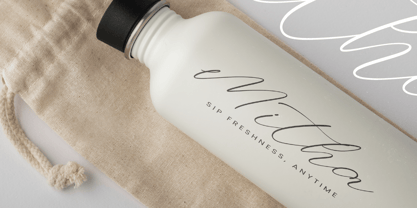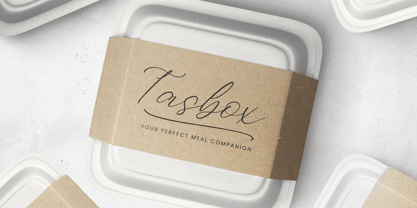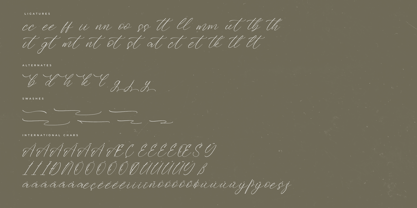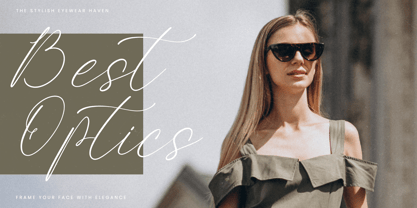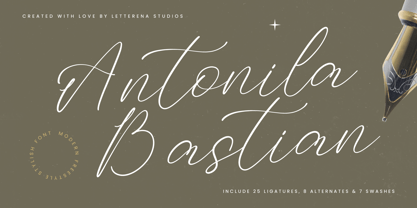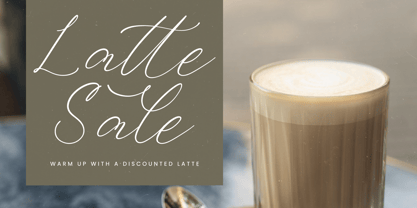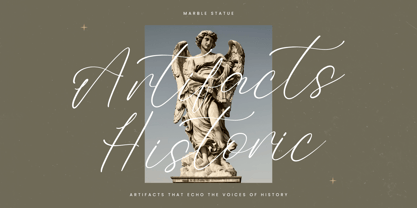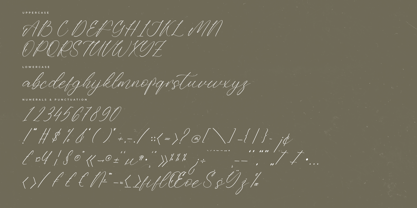
Antonila Bastian
by Letterena Studios
The Antonila Bastian Font Family was designed by Heru Utama Putra and published by Letterena Studios. Antonila Bastian contains 2 styles and family package options. More about this family
Antonila Bastian – Modern Freestyle Stylish , from Letterena, is a Luxury Script font, suitable for any projects such as: logos, branding projects, homeware designs, product packaging, mugs, quotes, posters, shopping bags, t-shirts, book covers, name card, invitation cards, greeting cards, label, photography, watermark, special events, and all your other luxury and beautiful projects that need a Luxury Script taste.